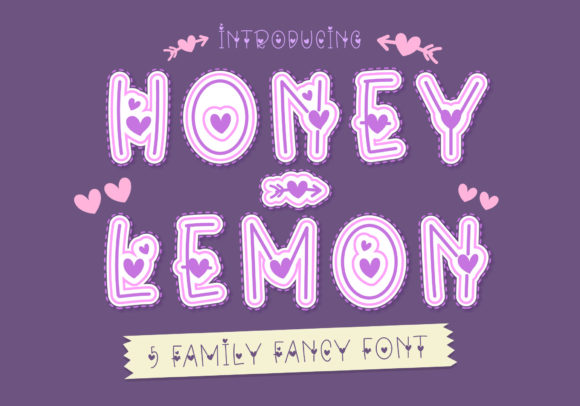
**Introducing Honey-Lemon: The Decorative Font That Captures Attention!**
Feast your eyes on Honey-Lemon, a captivating decorative font that will add flair to your every creation.
Dive into a realm of delightful designs, where Honey-Lemon's whimsical strokes dance across your screen, transforming ordinary words into eye-catching masterpieces. Let your imagination soar as you craft book covers that beg to be opened, birthday cards that exude warmth, and greeting cards that spread joy with each stroke.
Honey-Lemon isn't just a font; it's a creative spark that will ignite your designs. Its versatility knows no bounds, making it perfect for adding that extra touch of magic to any project. Whether you're a seasoned designer or just starting your creative journey, Honey-Lemon is the font that will make your work shine.
**Why Honey-Lemon Deserves a Spot in Your Creative Toolkit:**
* **Unleash Your Creativity:** Honey-Lemon is a playground for your imagination, allowing you to express yourself in countless ways.
* **Captivate Your Audience:** Its eye-catching design draws attention, ensuring your creations stand out from the crowd.
* **Add a Touch of Delight:** Honey-Lemon's playful strokes inject a dose of happiness into every design, spreading joy to all who encounter it.
* **Versatile and Effortless:** Seamlessly integrate Honey-Lemon into various projects, from invitations to social media graphics, without a hitch.
* **Crafted with Expertise:** Created by the renowned BB Type Studios, Honey-Lemon is a font you can trust for its quality and originality.
**Embrace the Honey-Lemon Magic:**